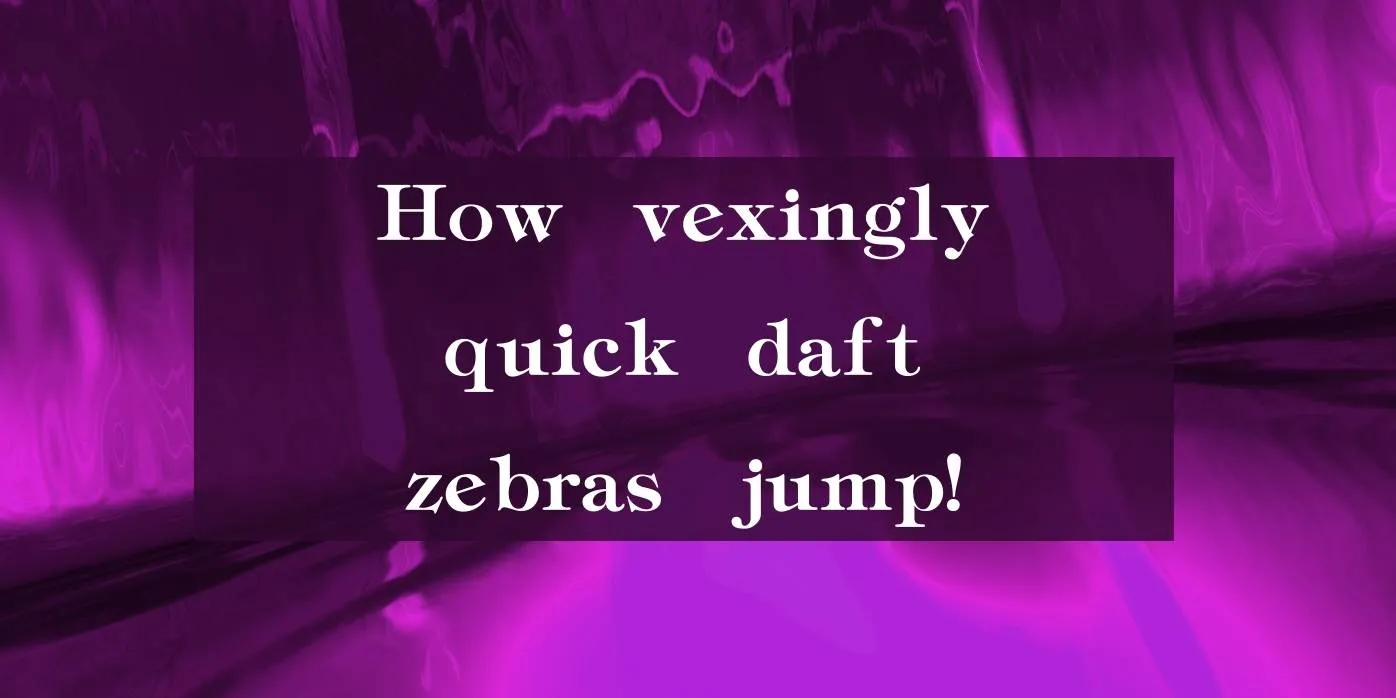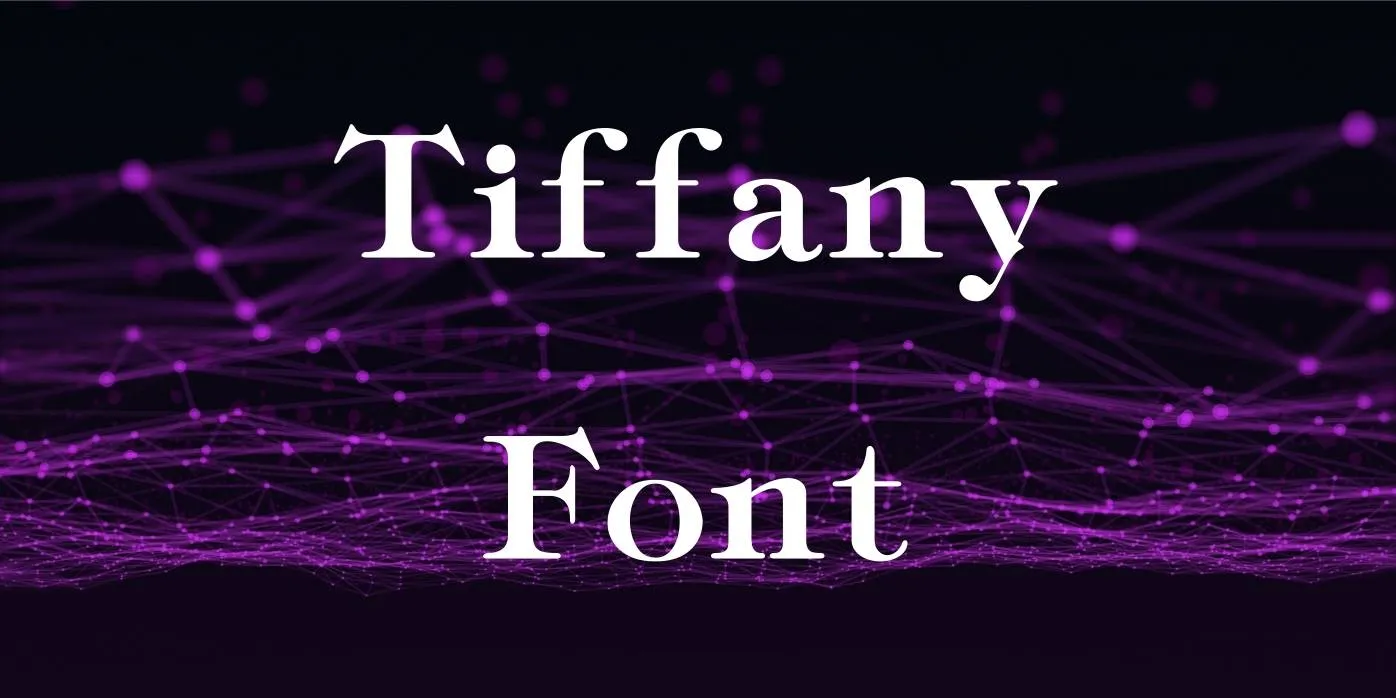
Tiffany Font
Tiffany Font is developed and published by Tiffany & Co., a famous jewelry company, and released in 2014.  This typeface belongs to the Serif typeface. This stunning typeface includes attractive styles and unique Glyphs. This cute Font provides helpful tips on how to use the typeface, including how to set your text and create beautiful designs with this typeface. This typeface has some unique features, such as its tall x-height and small caps.
This font family has great letters. Its copy and paste function is very helpful for different projects. This typeface is available in a wide range of weights, from light to extra bold making it perfect for adding some power and elegance to your designs. These weights make it strong and powerful.
This Font is available in both OTF and TTF formats. Butler Font is one of the most popular fonts for this classic typeface. because of its lot of features and unique Glyphs, this font is perfect for various design works. Space between its characters makes it legible even at small sizes.